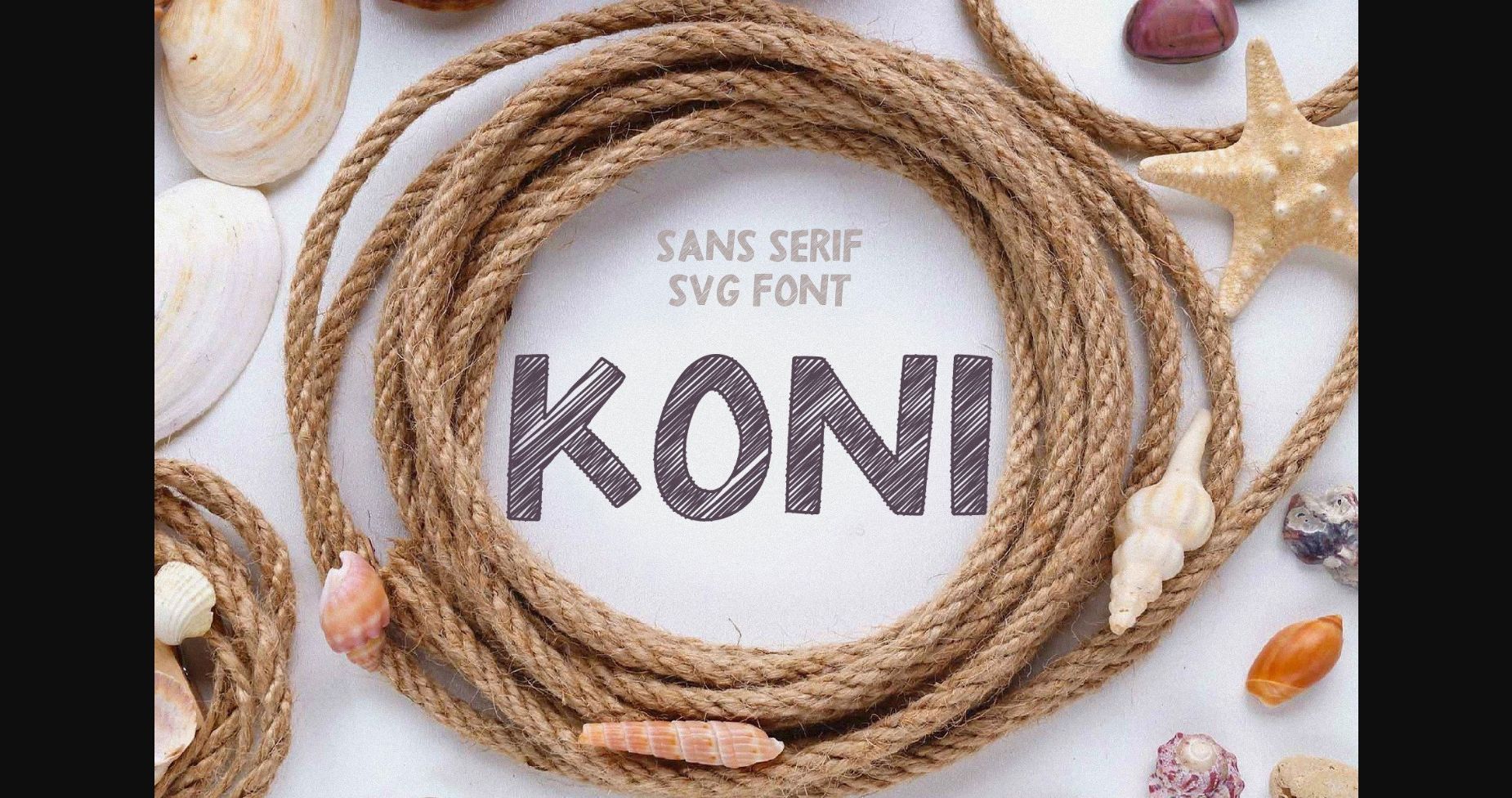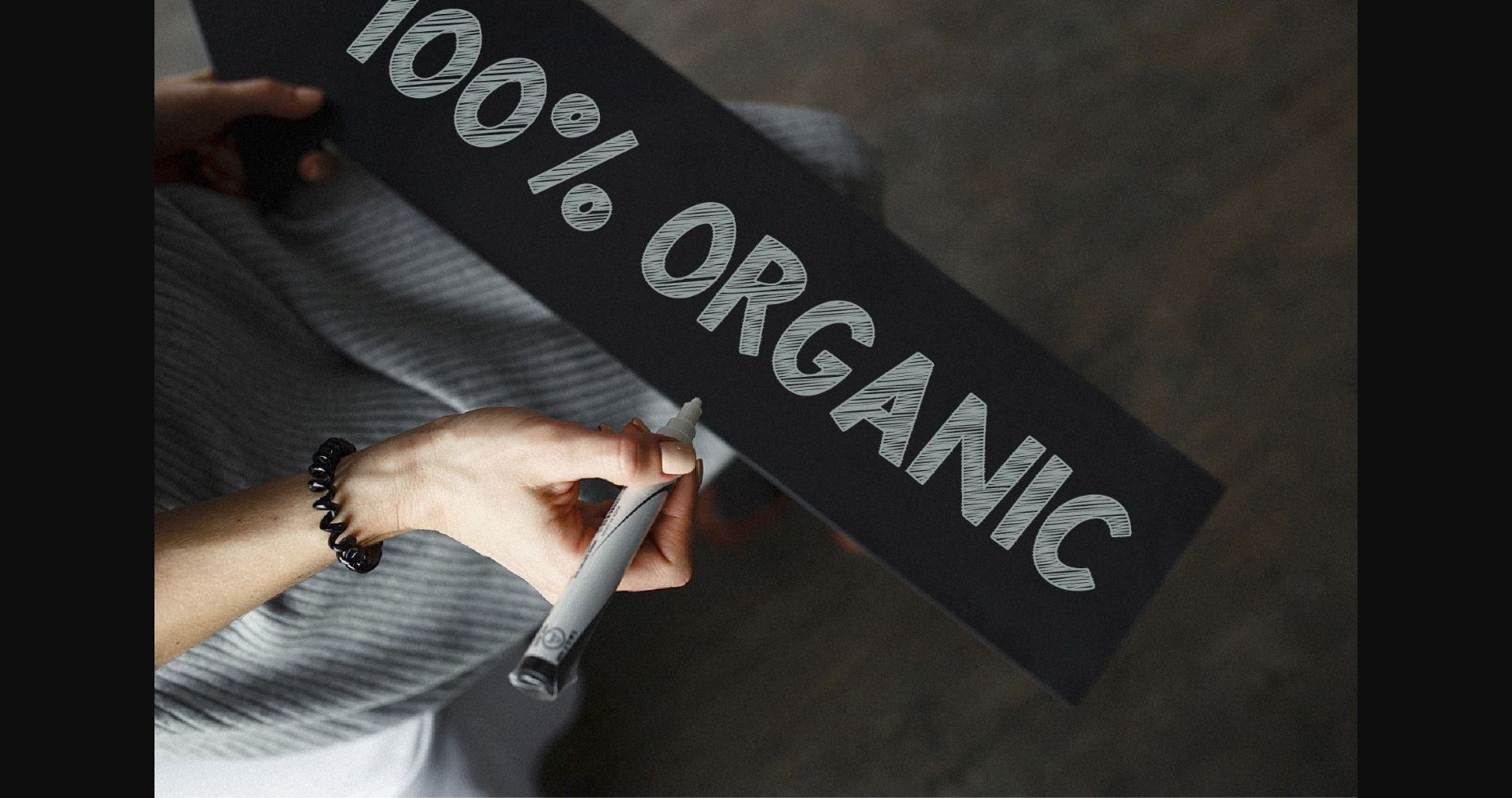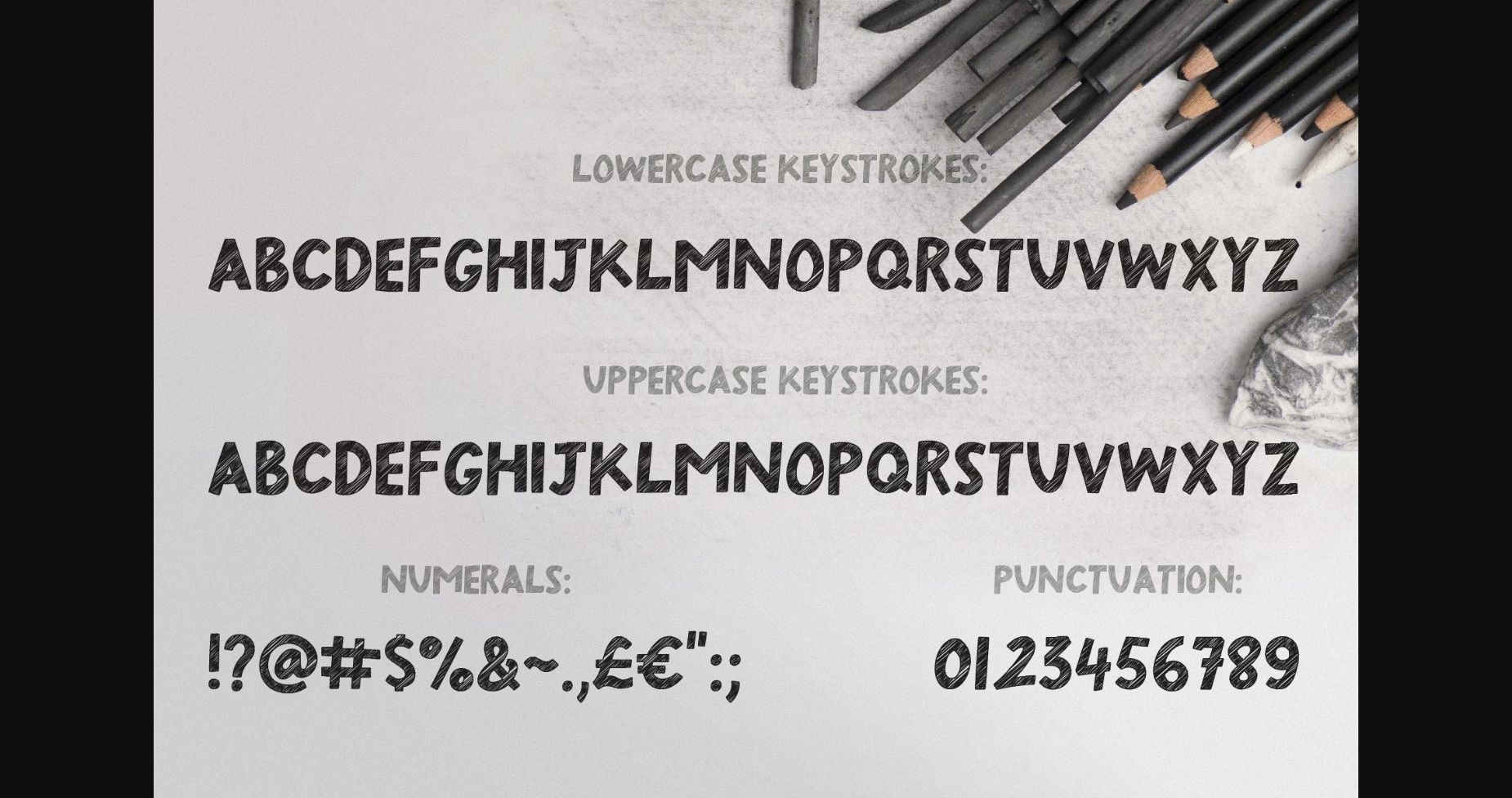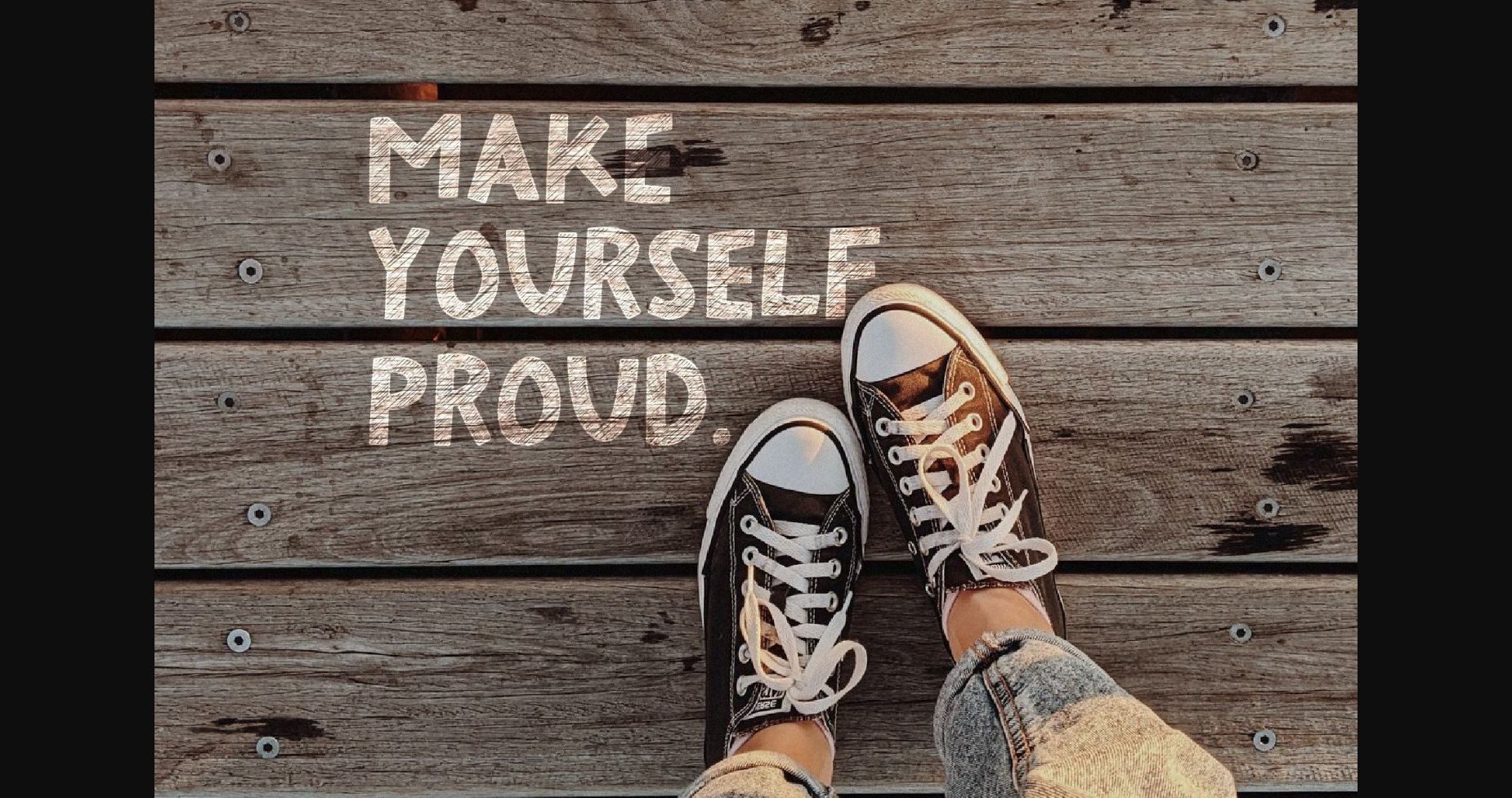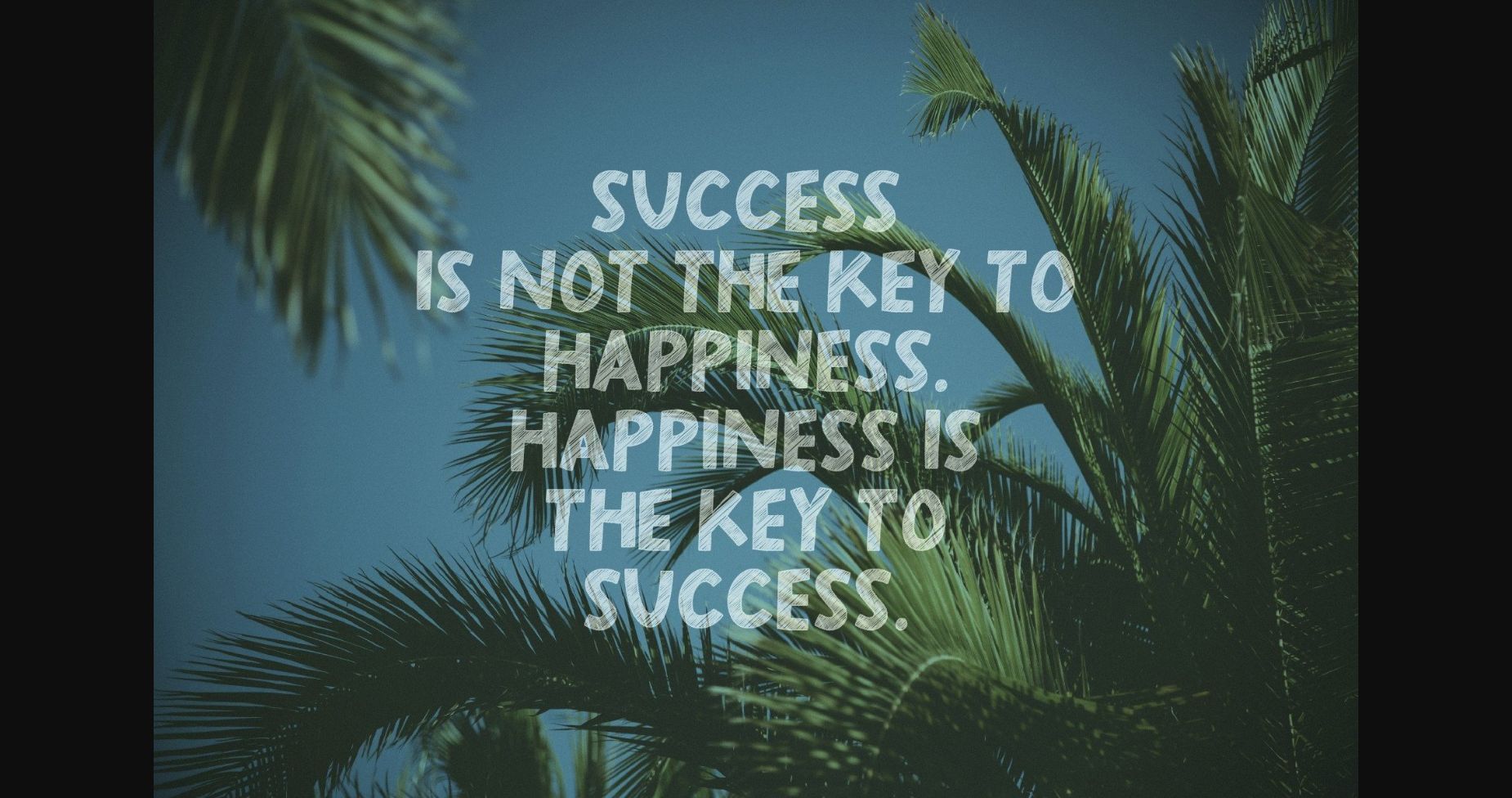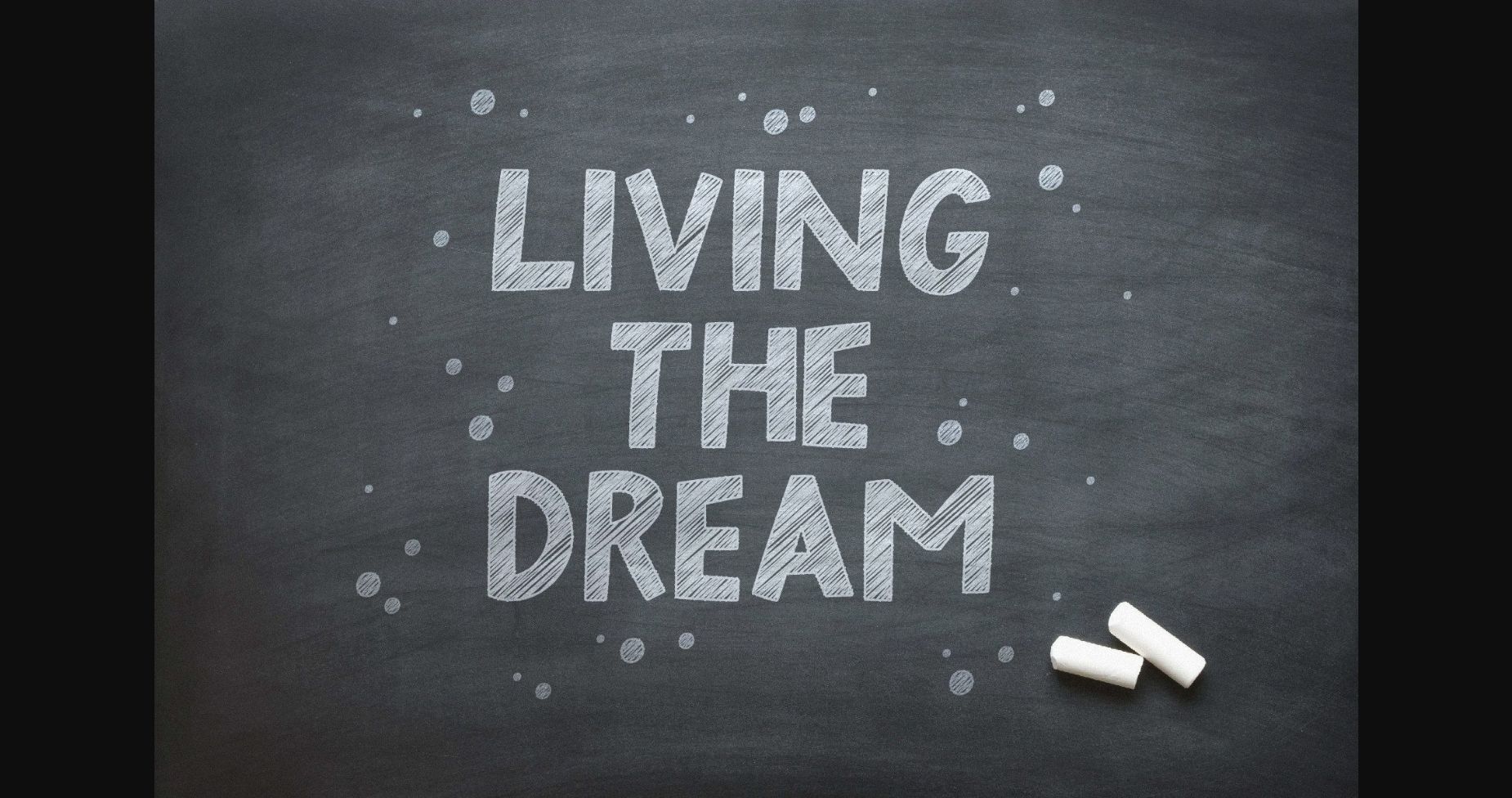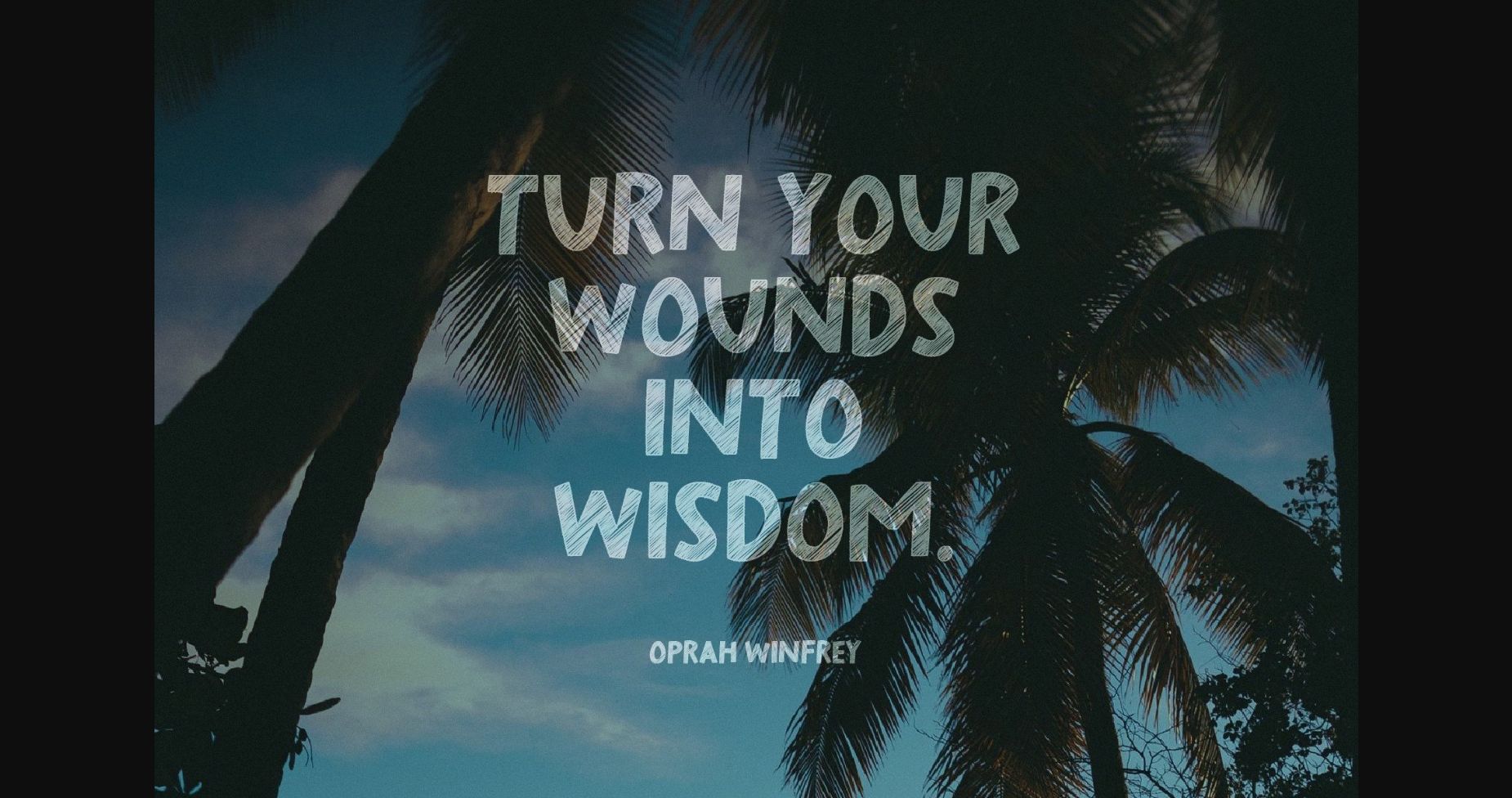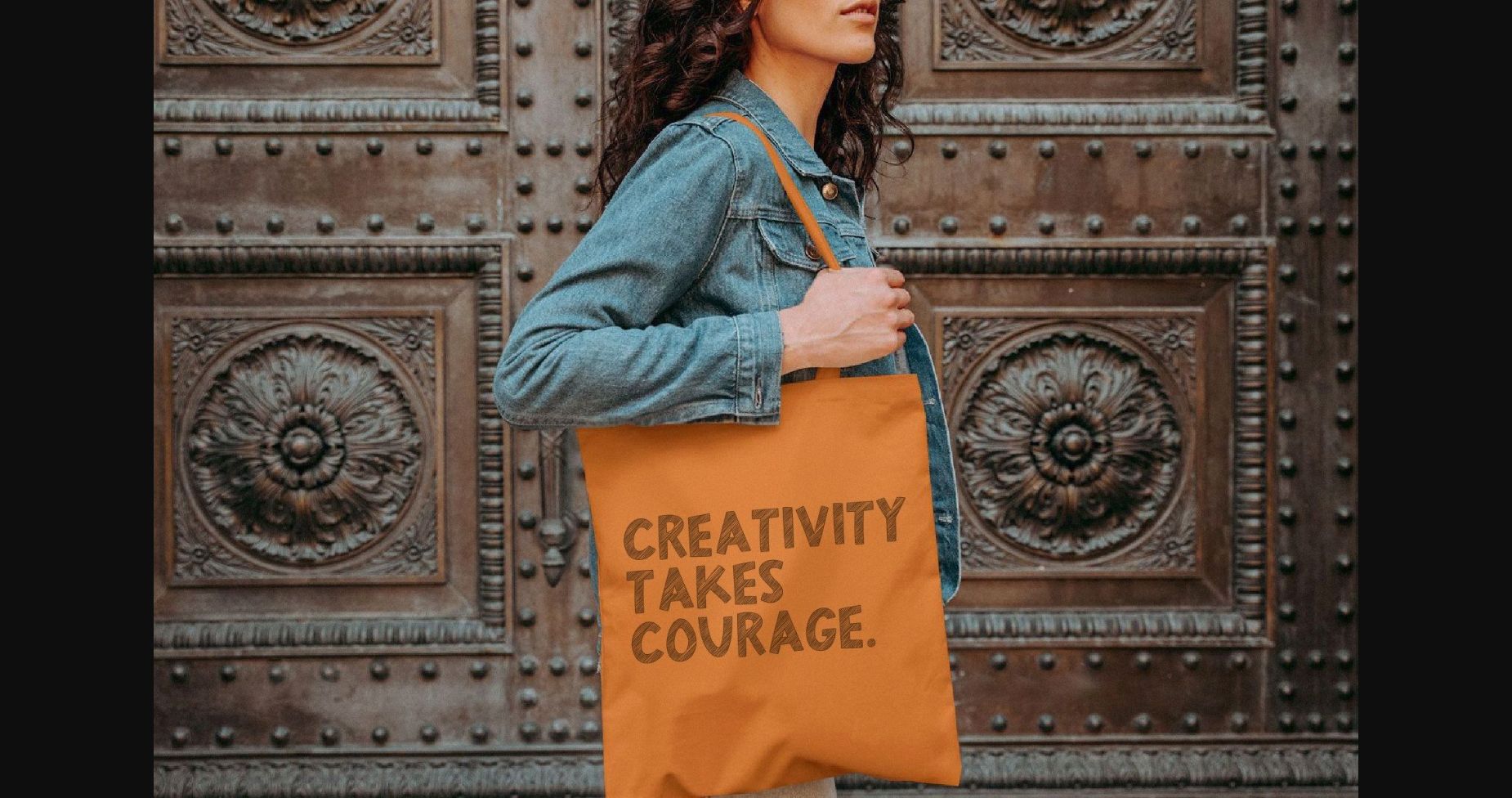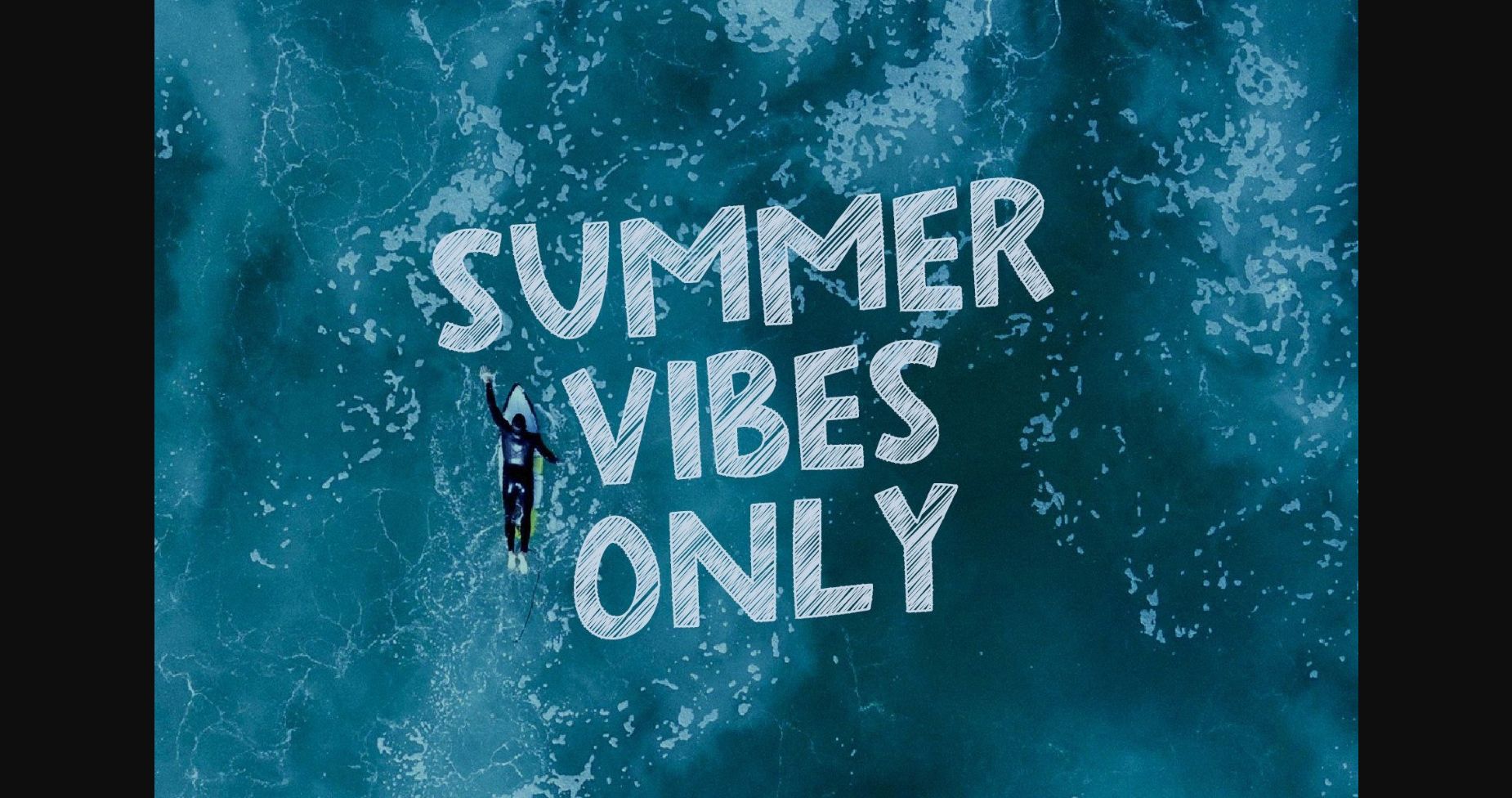
HomeSans Serif FontsKoni Font Sans Serif Fonts Koni Font FacebookXPinterestWhatsApp 1 of 11 ... Koni Font Poster 2... Koni Font Poster 3... Koni Font Poster 4... Koni Font Poster 5... Koni Font Poster 6... Koni Font Poster 7... Koni Font Poster 8... Koni Font Poster 9... Koni Font Poster 10... Koni Font Poster 11... About Koni Font Koni is a beautiful, natural, and neat sans serif inspired by nature. Distinguishable, interesting, and unique, it is the perfect font for branding, invitations, packaging, quotes, labels, and many more. DOWNLOAD NOW People also explored Marmalede Font Holland Font Baby and Milk Trying Again Font First Blood Font Camelia Font Hello Chiang Mai Font Ducky Font Blocke Sports Font 368 0 TagsKoniKoni Font Previous articleCoretras FontNext articleMaildore Font LEAVE A REPLY Cancel reply Comment: Please enter your comment! Name:* Please enter your name here Email:* You have entered an incorrect email address! Please enter your email address here Website: Save my name, email, and website in this browser for the next time I comment. Personal Use Free Girls Personal Use Free Read more about this font Geracella Personal Use Free Read more about this font Avatarock Personal Use Free Read more about this font Consequences Personal Use Free Read more about this font BLOG 5 Fonts That Will Dominate Design Trends in 2026 5 Fonts for 2026 That Will Dominate Design Trends Typography plays a critical role in visual communication, and as we look ahead to 2026, it’s... Transform Your Website: Elevate Your Typography with 7 Best Web Font Generators Modern Sans-Serif Fonts That Brands Love in 2025 Free Fonts Risk: Why Free Fonts Can Be Dangerous for Designers